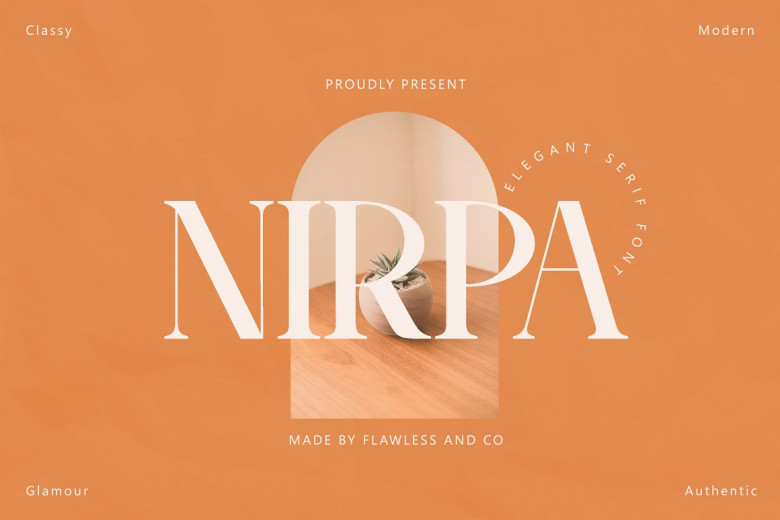
Nirpa Font
Nirpa is a modern serif font designed with elegant characters, making it the ideal font choice for wedding invitations. Some letters connect and can be used in alternative font forms that can be utilized across graphic designs including promotional materials such as T-shirt, business cards, print posters, logos photographs quotes etc.
Nirpa Serif Font